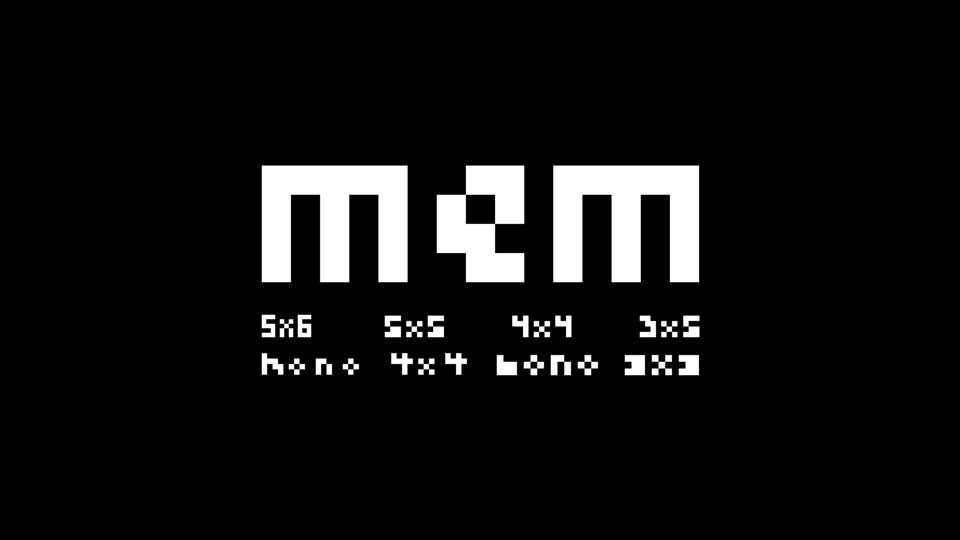
Download Mem font, a proportional and monospaced sans light pixel typeface designed for large and small size with principles of readability, compactness, smoothness (pixel clustering), and visual consistency.